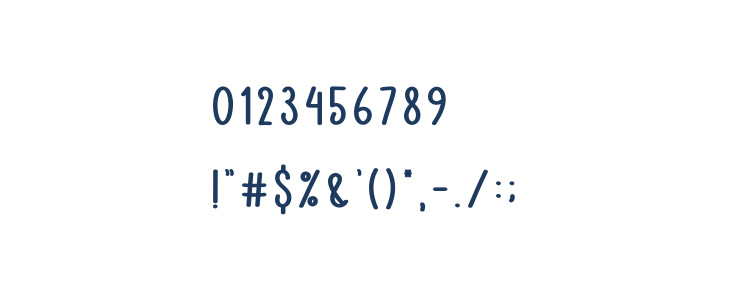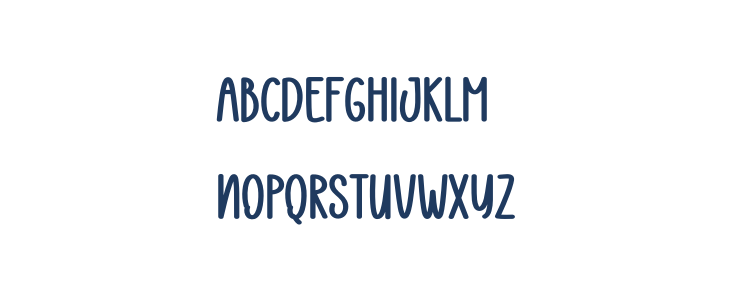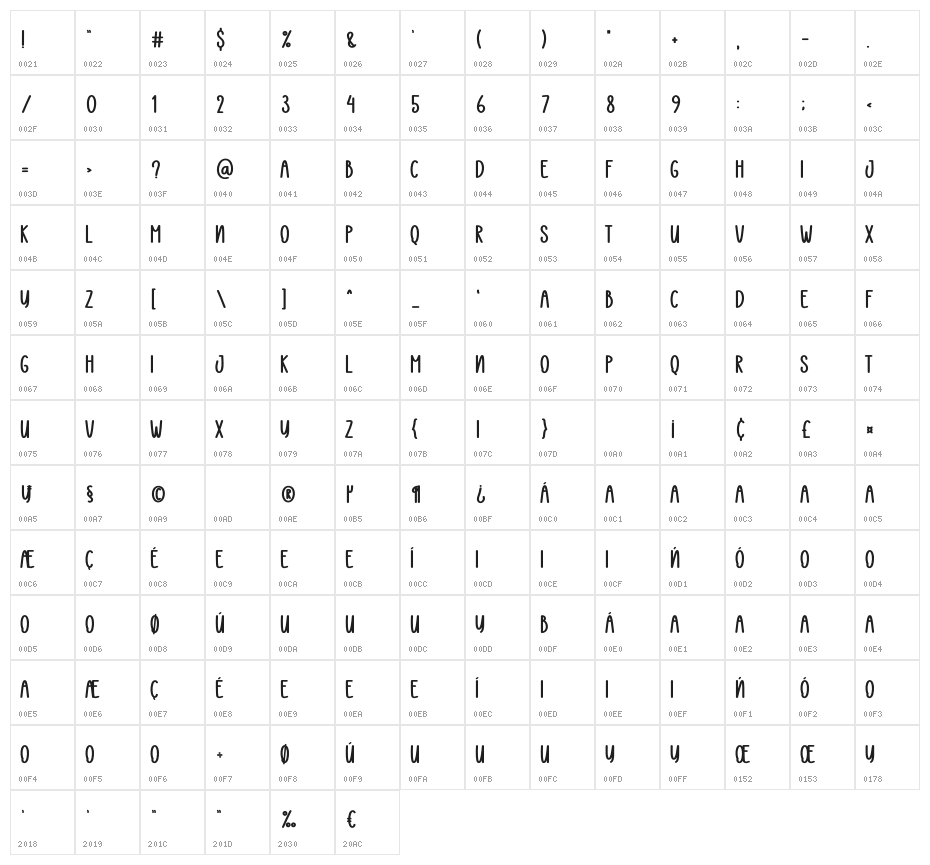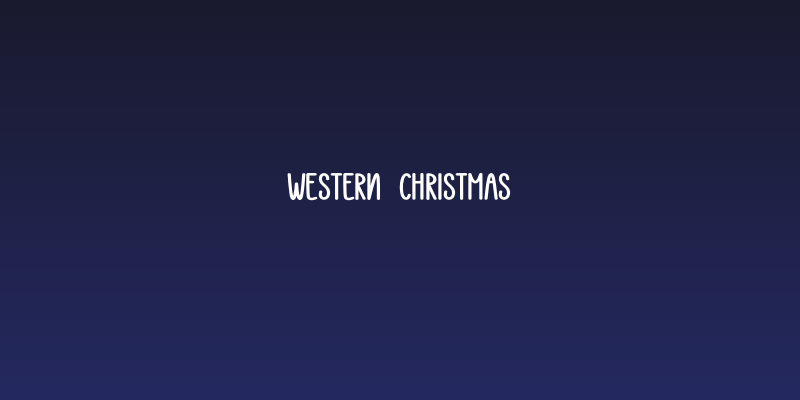
Western Christmas Font
Western Christmas Description
A playful, rounded sans-serif font with uniform stroke width and slightly condensed letterforms, featuring tall uppercase characters and a casual, handwritten feel. The numbers and punctuation maintain the same informal, approachable style.
| Overall Style | Playful, Handwritten, Casual |
| Use Case | Headlines, Logos, Posters, Invitations |
| Proposed Projects | Greeting cards, children's books, festive invitations, casual branding, posters. |